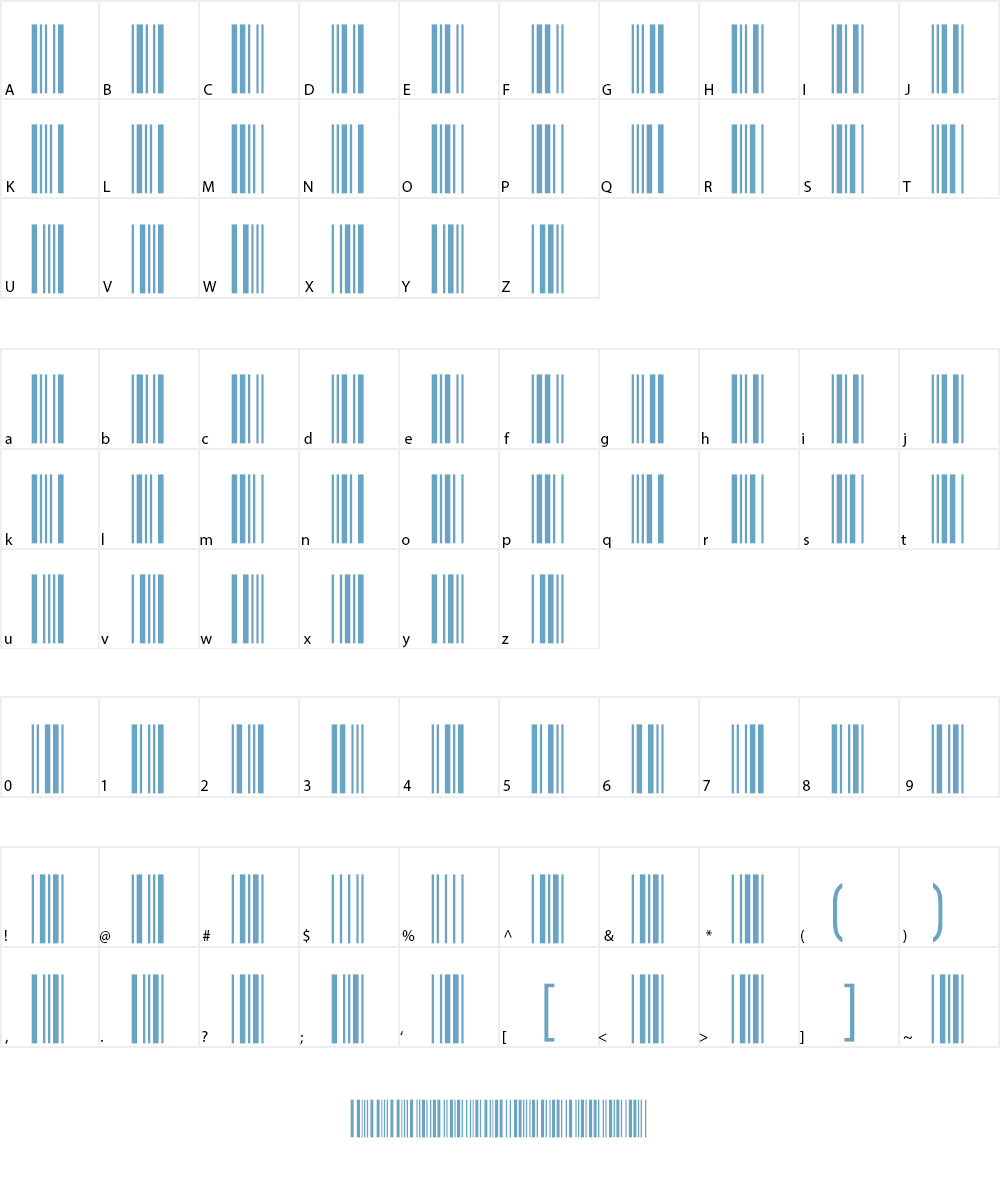
A collection of Barcodes. Code39 can be used for numbers and some letters, codabar only for numbers.
Important: Start and end character of a Barcode must be *